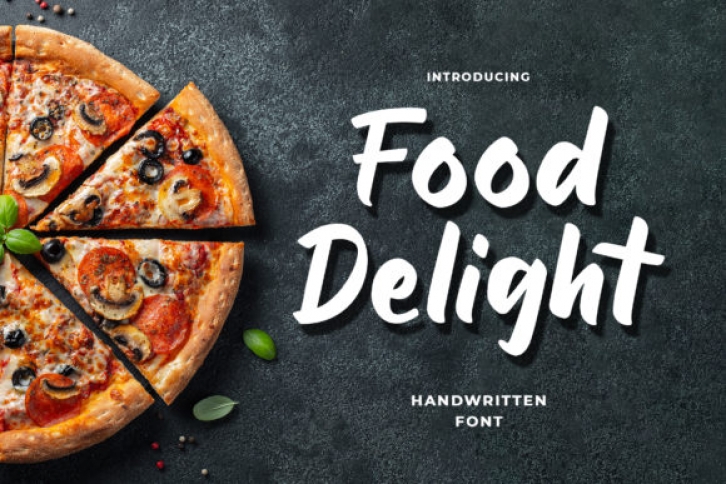
Food Delight is a thick lettered and strong handwritten font. It is perfectly suited for any culinary projects, street food related, restaurant menus, coffee shop menus or any other branding material you can think of.